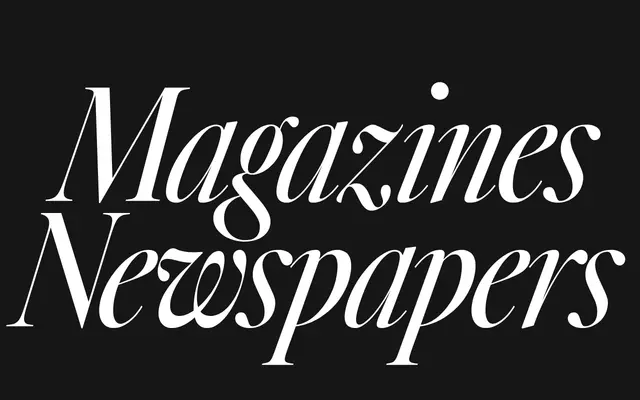
Atacama
Newglyph · Ian Party
A Garalde serif by Ian Party with bracketed serifs, curved droplets and a variable axis spanning weight, width and contrast across 180 styles.
Designed by Ian Party, Atacama takes the Garalde model as its framework, working with modulated thick-to-thin strokes, bracketed serifs and wide rounded apertures that aid legibility at text sizes. The family ships as two variable fonts covering Roman and Italic, with weight, width and contrast axes, generating 180 discrete static styles as a byproduct. With 399 glyphs per style and broad Latin language support, it targets print, web and screen applications equally.
The foundry explicitly classifies Atacama under the Garalde category, citing bracketed serifs, modulated stroke contrast and humanist curves characteristic of old-style typefaces in the Aldine tradition.